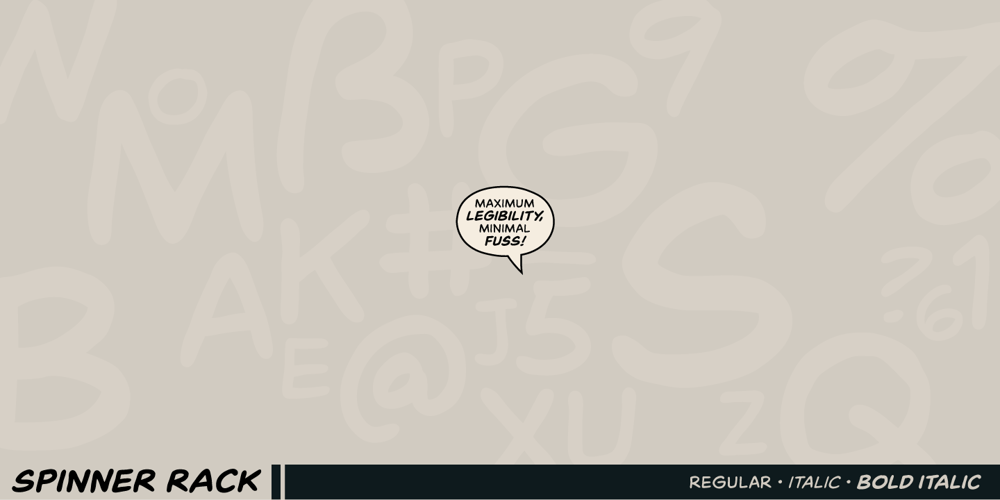
Spinner Rack BB Font Family was designed by Nate Piekos and published by Blambot. Spinner Rack BB contains 6 styles and family package options. Spinner Rack BB began in 2016 as an experiment: How small could I hand letter comic book dialogue, and have it remain legible. The smaller the lettering became, the simpler the letterforms got. The result is a clean, clear comic book dialogue font perfect for any size. Includes Regular, Italic, and BoldItalic, with European characters, and opentype autoligatures.